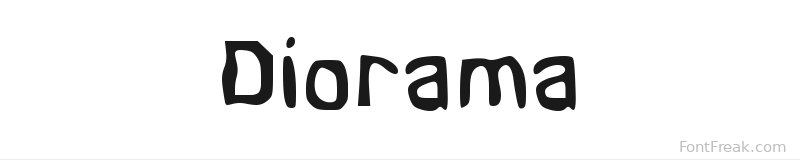
Diorama
Diorama, designed by Wahyu Eka Prasetya in 2021, is a unique display font that captures the essence of modern creativity. This typeface stands out with its playful, yet structured appearance, making it a versatile choice for various design projects. As a decorative font, Diorama features a balanced stroke weight that gives it a strong visual presence while maintaining an inviting character. The contrast between thick and thin strokes enhances its legibility, making it suitable for both headlines and body text. The spacing is thoughtfully designed, ensuring clarity without sacrificing style, which is ideal for engaging viewers.
This font shines in a variety of applications. It is perfect for wedding invitations, where its charming character adds a personal touch to romantic themes. Additionally, Diorama works beautifully for movie posters, capturing attention with its bold presence and unique flair. Restaurants can also benefit from this font, as it adds a contemporary feel to menus, enticing diners with its stylish aesthetic. Content creators will find it ideal for social media graphics and promotional materials, as its distinctive look sets them apart in a crowded digital landscape.
Targeting graphic designers, small business owners, and content creators, Diorama offers a fresh alternative to traditional typefaces. Its freeware license allows users to incorporate it effortlessly into their projects without financial constraints, making it accessible for a wide audience.
In conclusion, the Diorama font free download is not just a typeface; it is an artistic statement that combines creativity with functionality. Its unique design elements, combined with its versatility across various applications, make it a standout choice for anyone looking to elevate their visual communication.